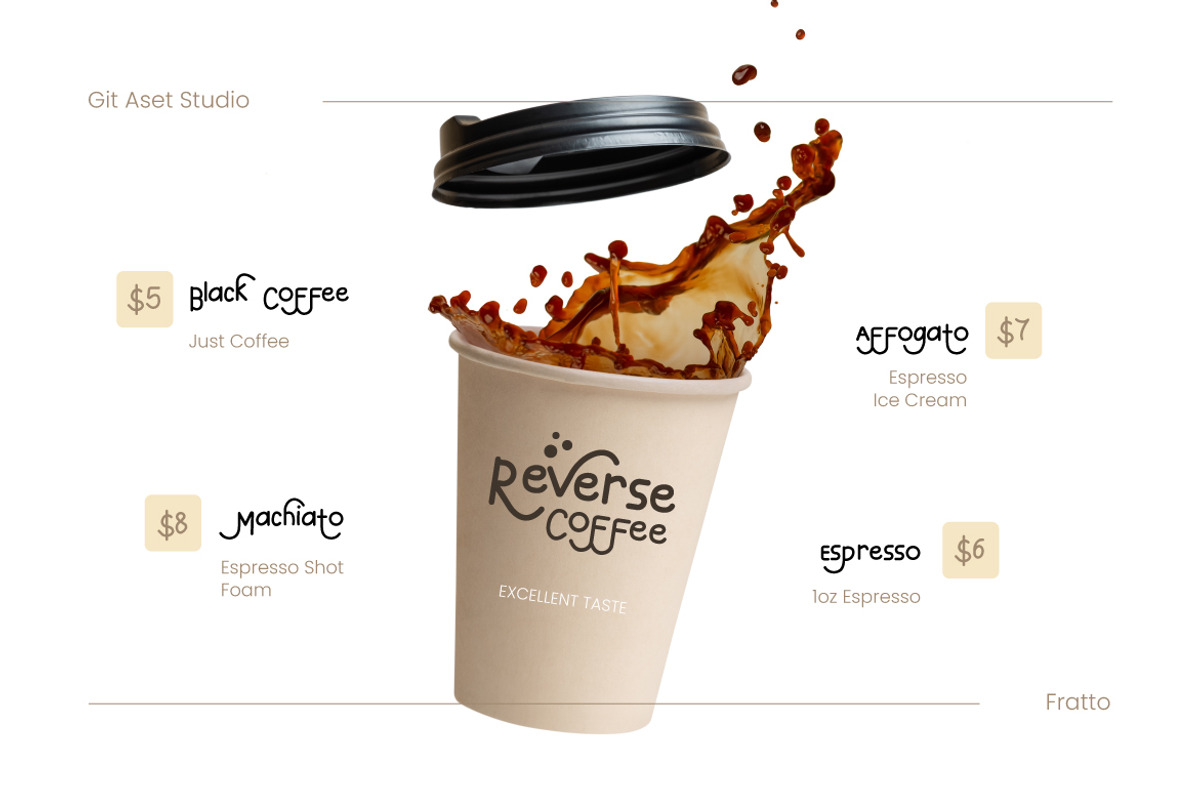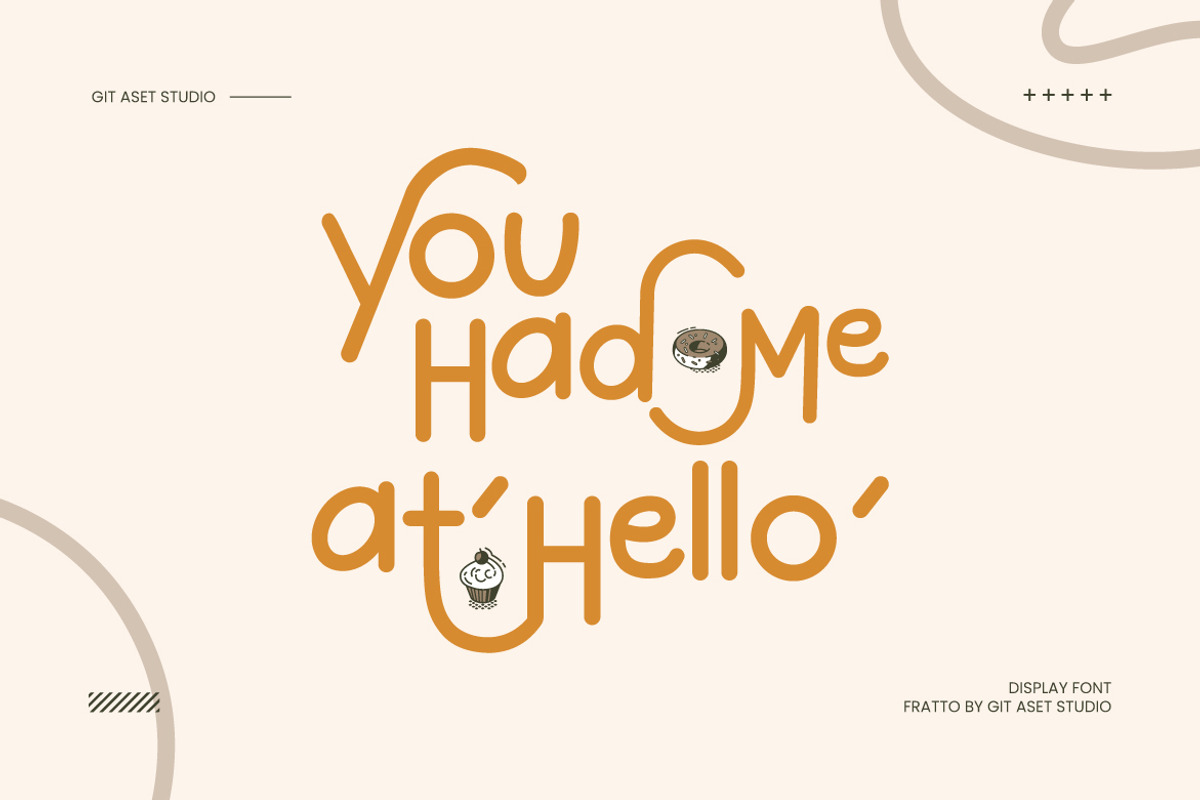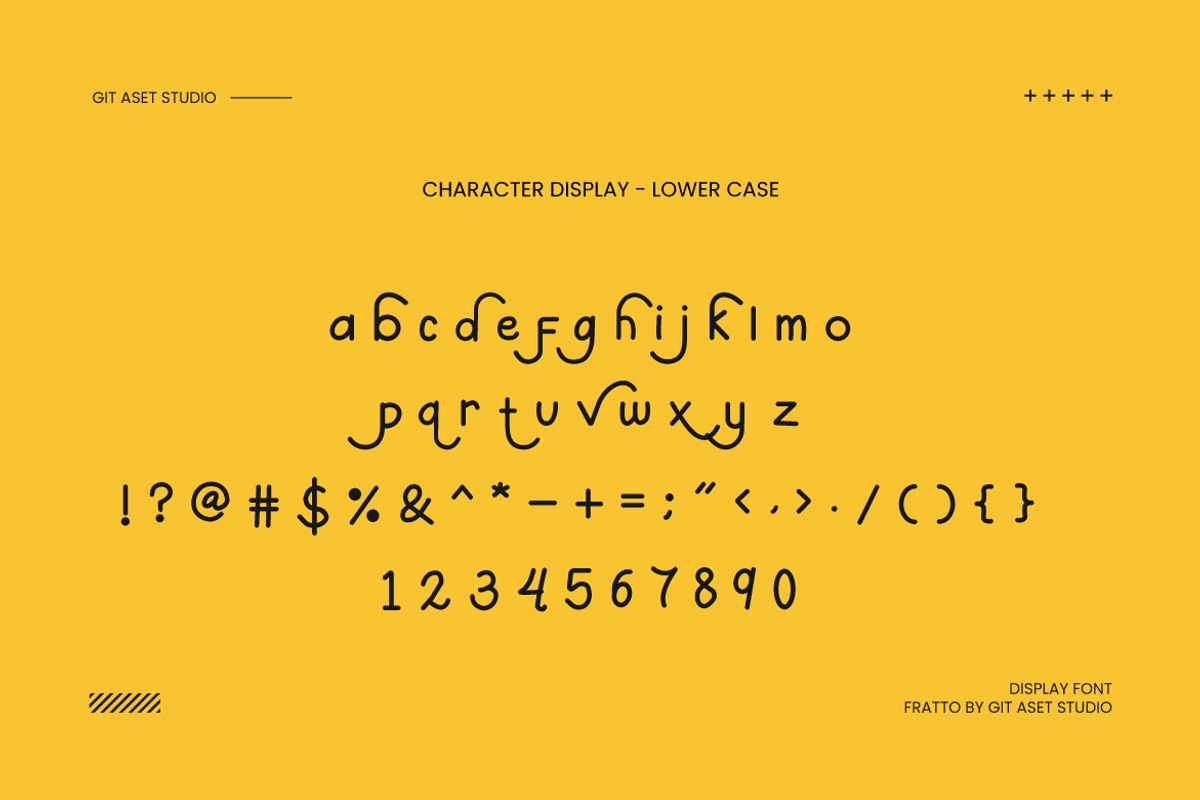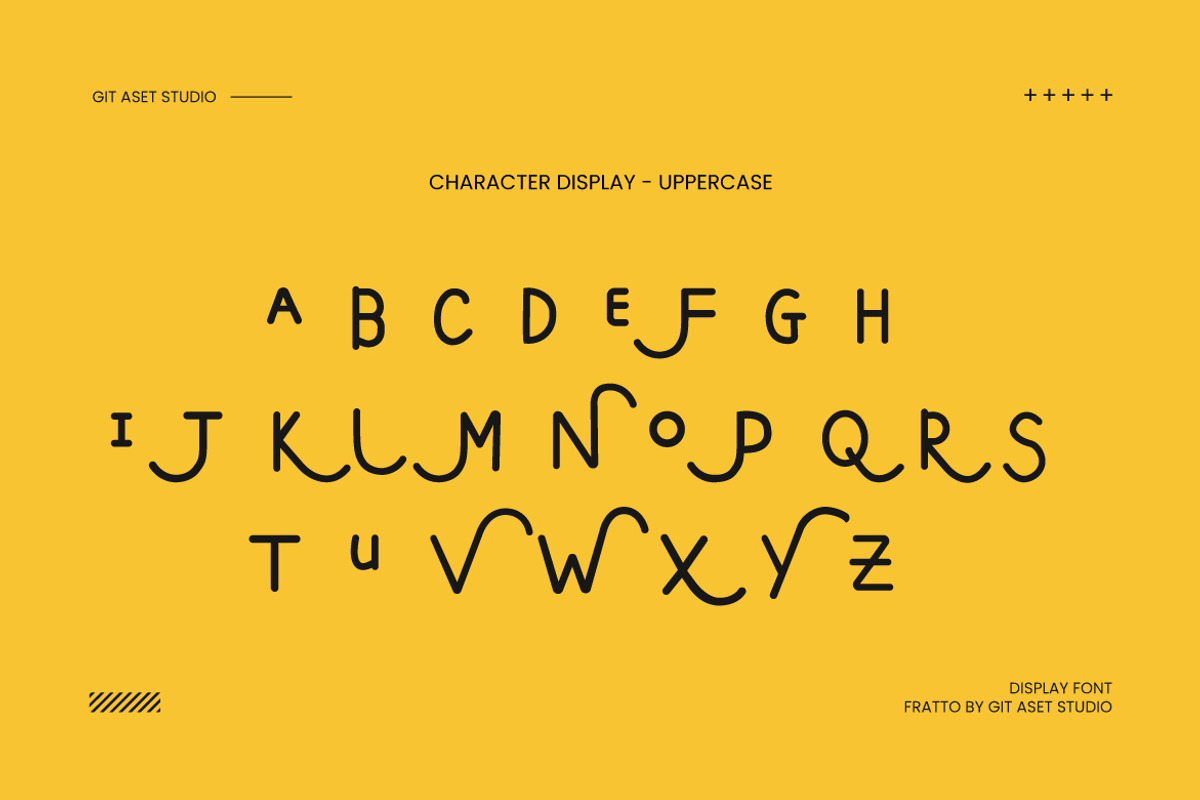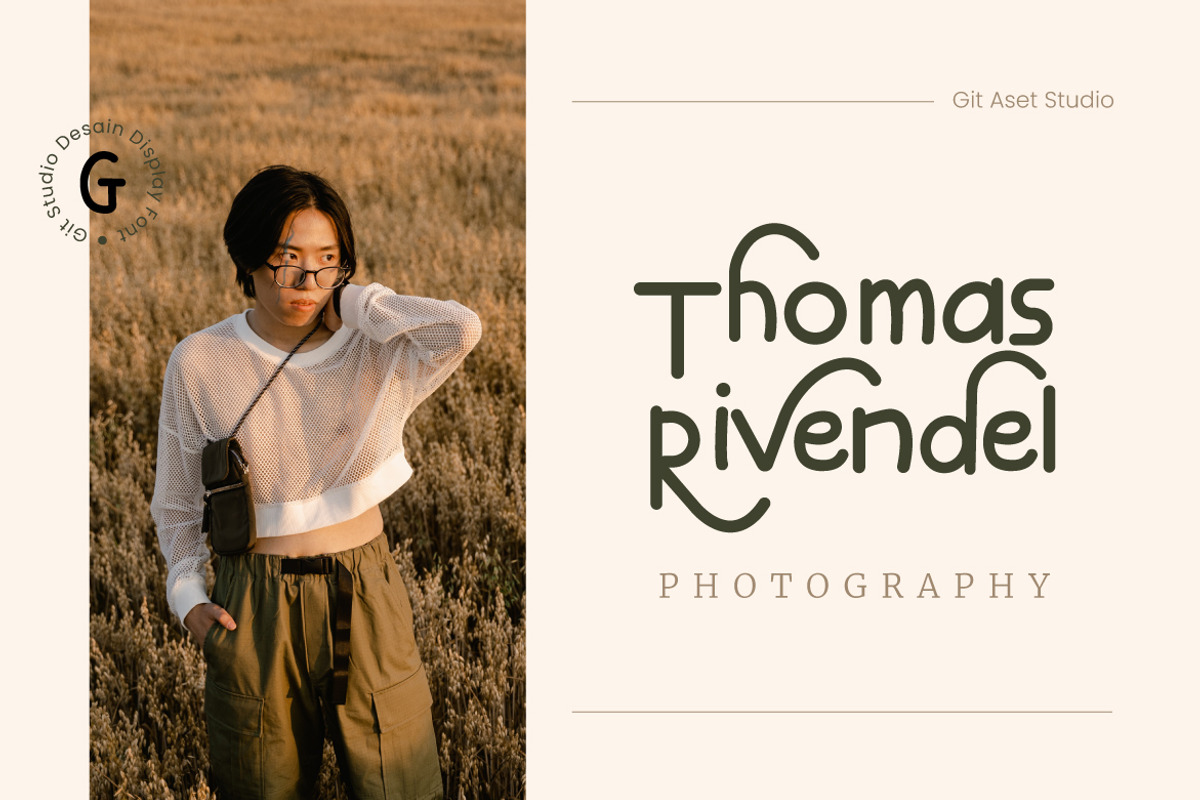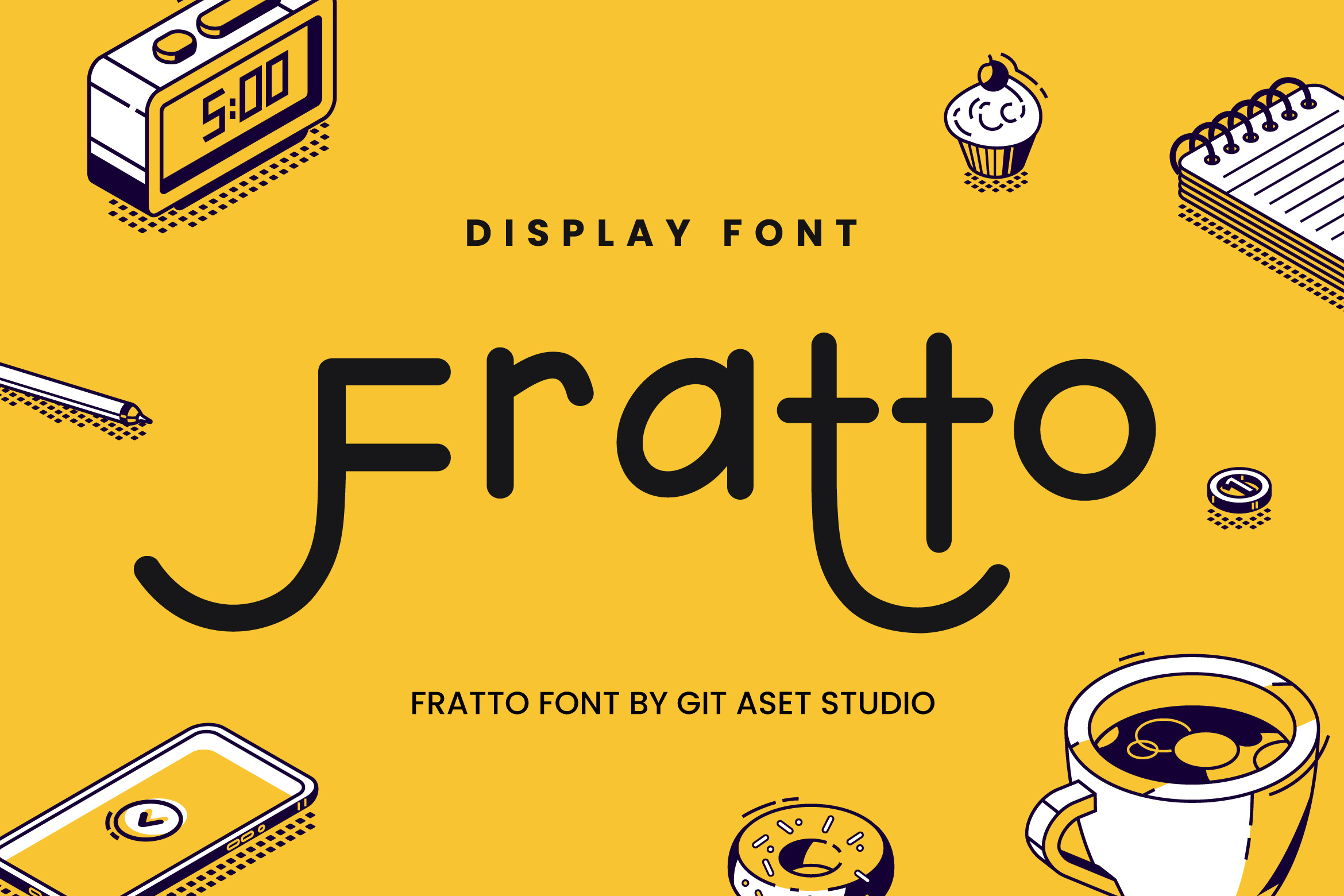
Fratto - Display Playful font
Designed specifically for display purposes, this font is an excellent choice for creating eye-catching headlines, titles, and logos. Its unique style and boldness make it ideal for magazine covers, posters, and branding projects.
Good for magazine covers, posters and flyers, branding and packaging, web graphics and banners, social media posts.